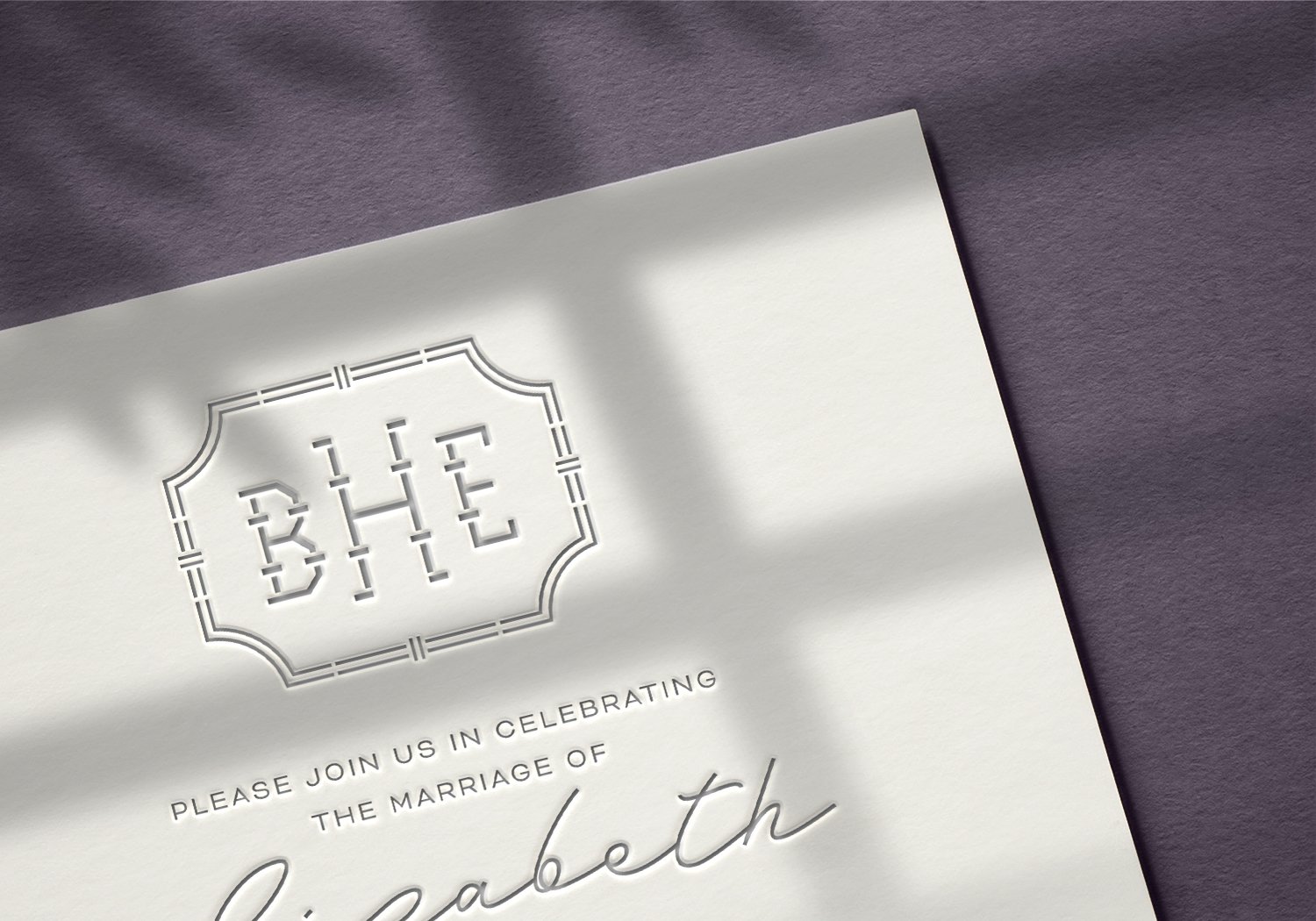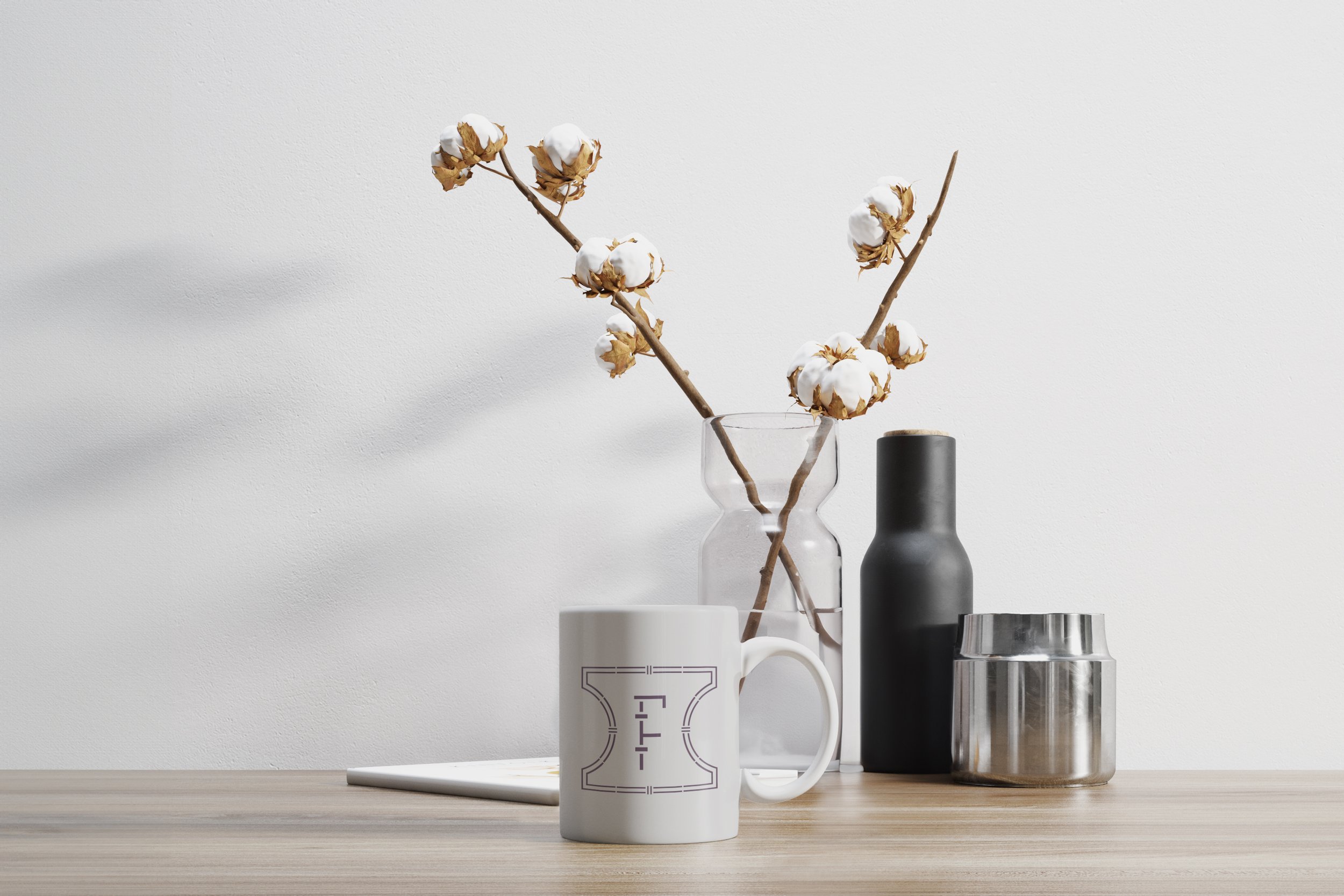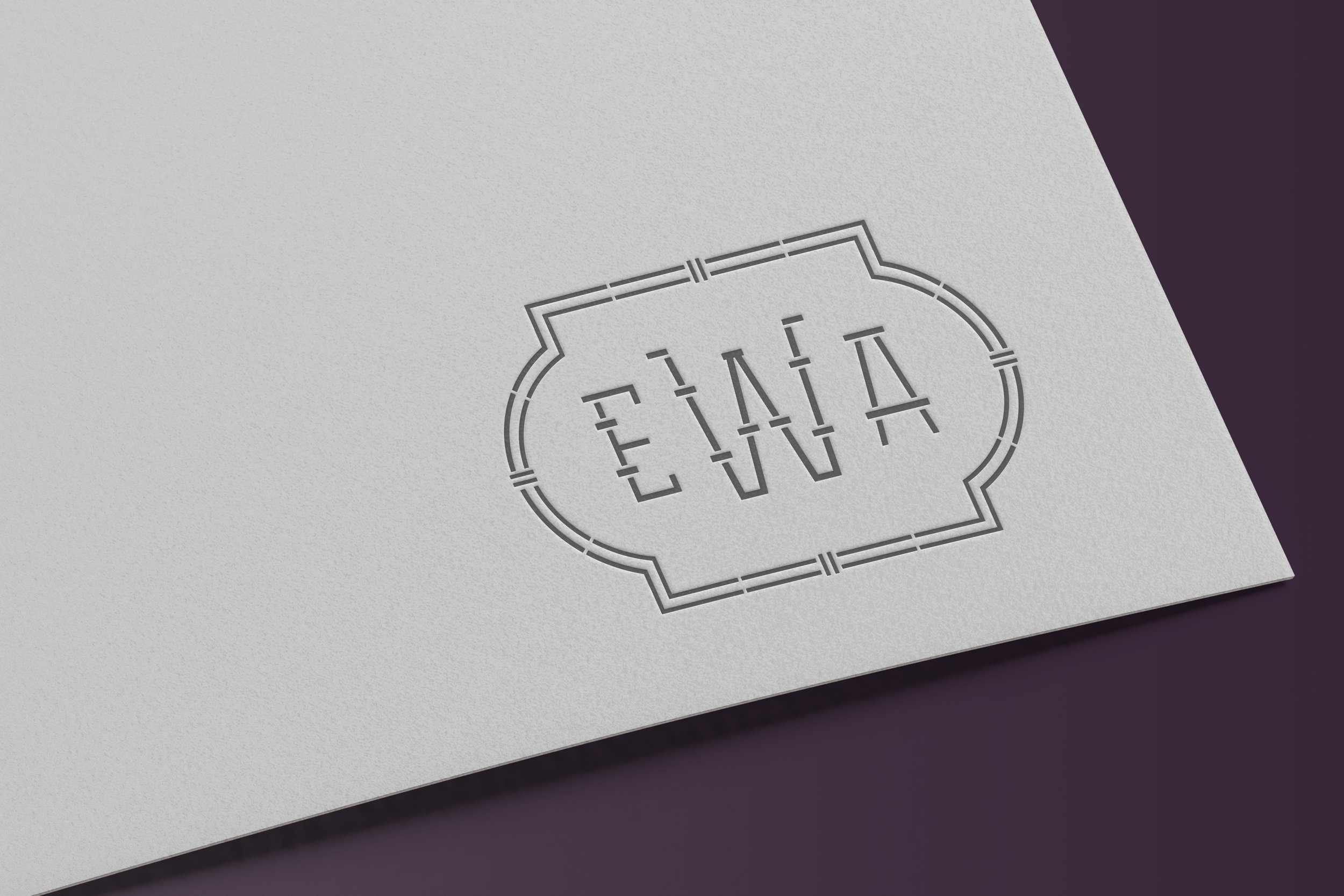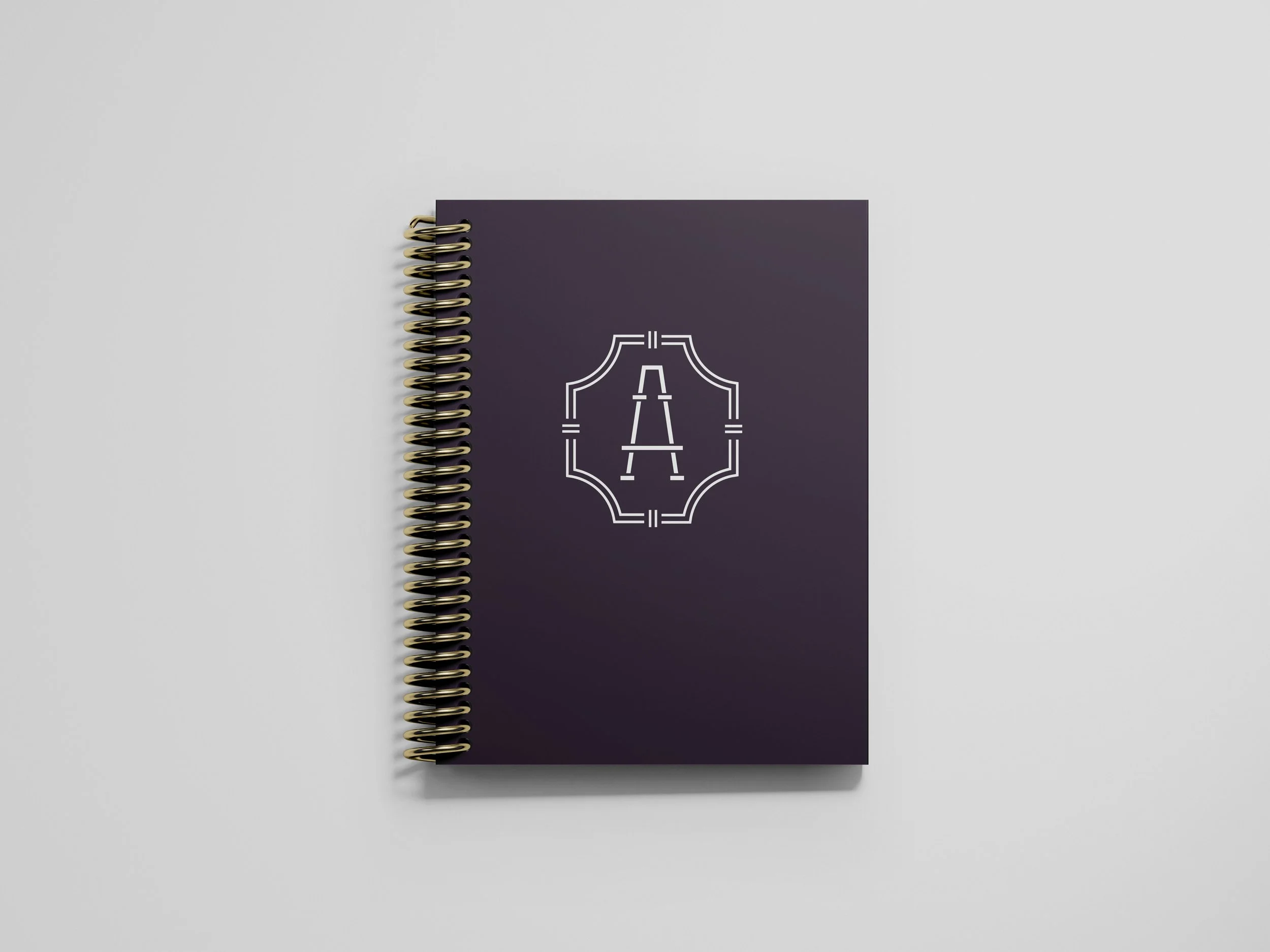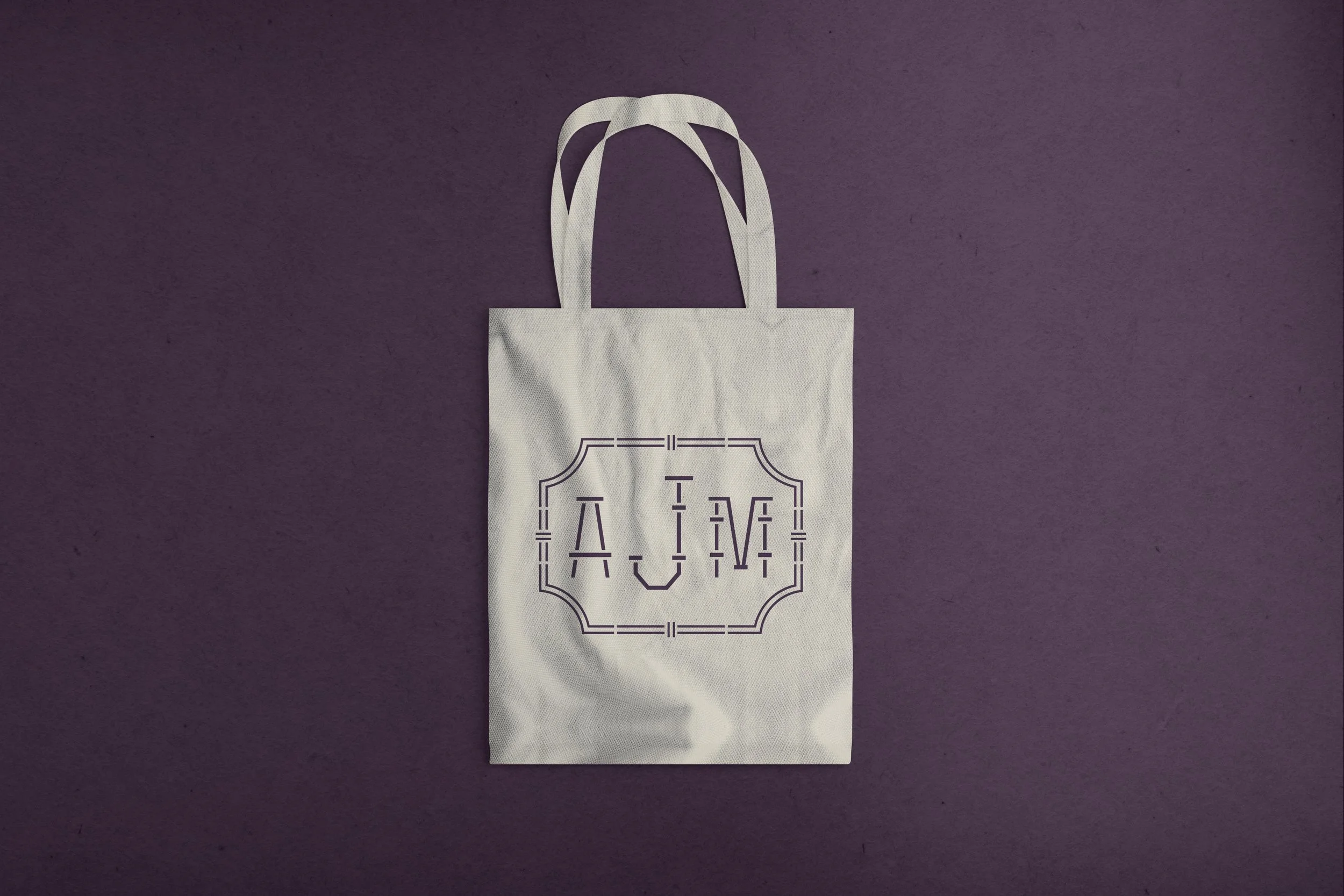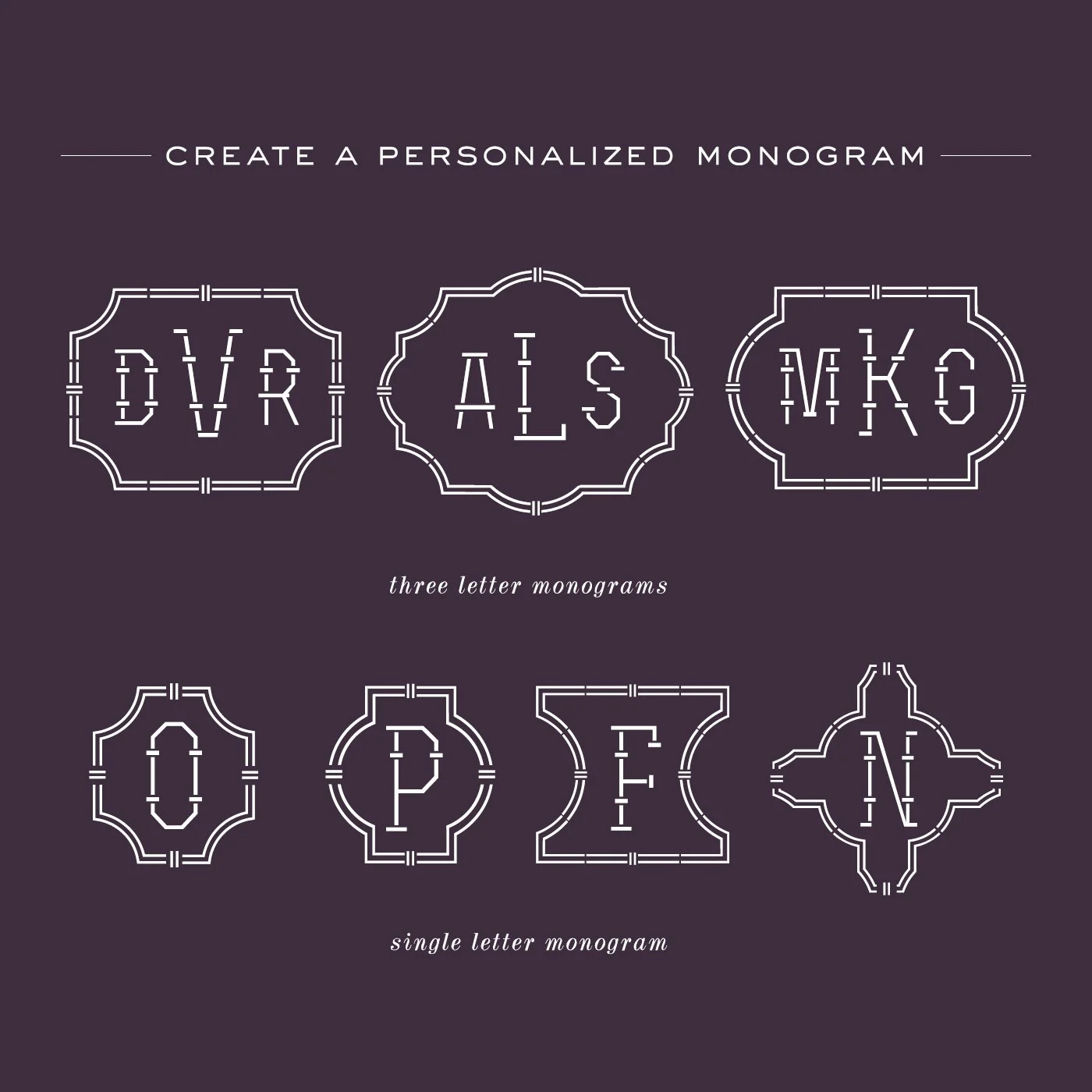
Make gorgeous one, two and/or three letter monograms quickly and easily in any program with this OpenType font.
MODERN BAMBOO MONOGRAM FONT is the perfect monogram font suitable for wedding invitations, branding, stationery, blog design, custom art, return address stamps, custom embossers, etc. - the possibilities are endless!
This font may be used in any application that supports OpenType features including, but not limited to, Word, Pages, Photoshop, Illustrator and the rest of Adobe Creative Suite. The font file also includes a set of 7 predesigned unique frames that are perfect for combining with your monogram. The borders are vectors and have editable stroke widths for customizability.
• The singular file within the folder has the large and small letters along with all the borders. The uppercase letters are the center letters for last names and work as single monograms, the lowercase letters are the ones that sit on the sides to represent first names and middle names. The borders are located as numbers one through seven. One through three are three letter monogram borders and four through seven are the single letter monogram borders. For a full monogram, overlay the borders with your chosen letters.